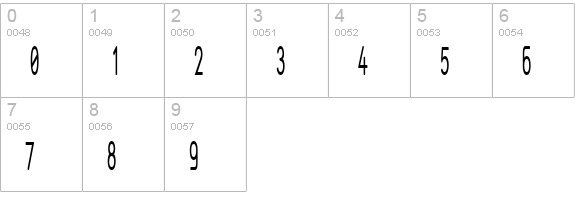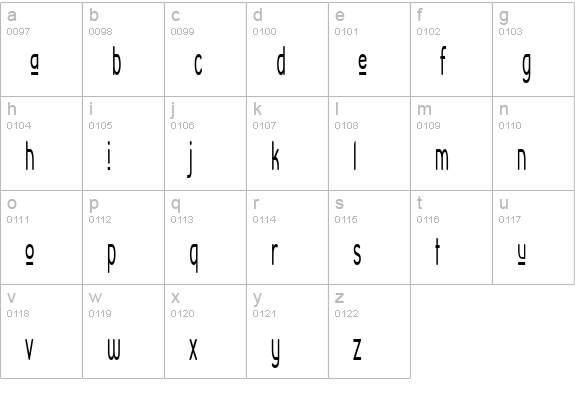
Street Corner Upper Narrower Font Details
Street Corner Upper Narrower font is a modern and stylish typeface that exudes sophistication and elegance. With its sleek and slender letterforms, this font is perfect for creating eye-catching headings, titles, and logos. The clean lines and sharp angles give it a contemporary edge, making it ideal for projects that require a touch of urban flair. The Street Corner Upper Narrower font is versatile and can be used in a variety of design applications, from print materials to digital projects. Its bold and striking appearance is sure to make a statement and capture the attention of your audience. Best of all, Street Corner Upper Narrower font is completely free to download at FontsMarket.com. Whether you're a professional designer looking to add a unique touch to your projects or a hobbyist looking for a new font to play with, this font is a must-have in your collection. Download it today and start creating stunning designs with ease!